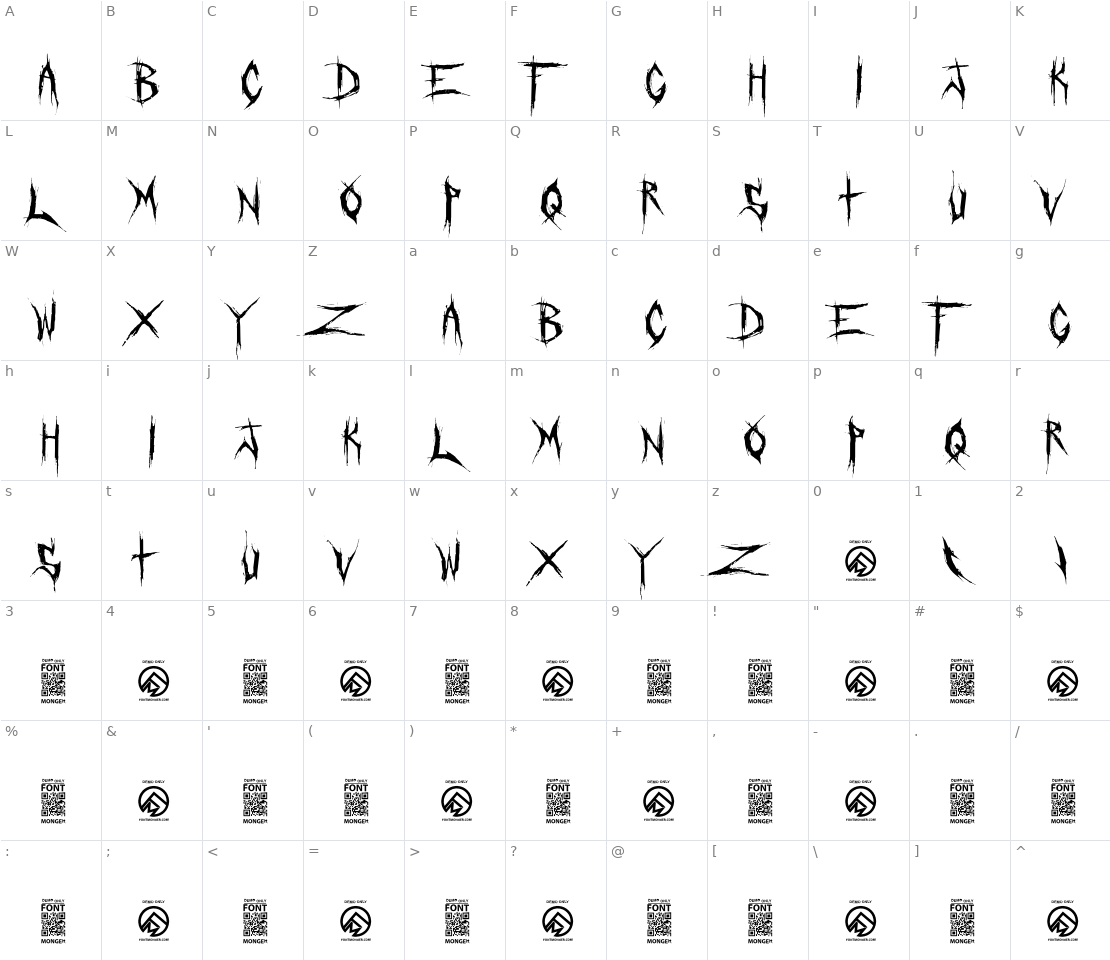
Crucifixion
Crucifixion is a jagged, scratchy display face from Chris Vile that looks like it was carved into something with a rusted nail. The letterforms are sharp and spiky, with distressed edges that feel genuinely menacing rather than decoratively rough. Built for horror titles, metal band logos, and dark-themed work where the type itself needs to feel dangerous.